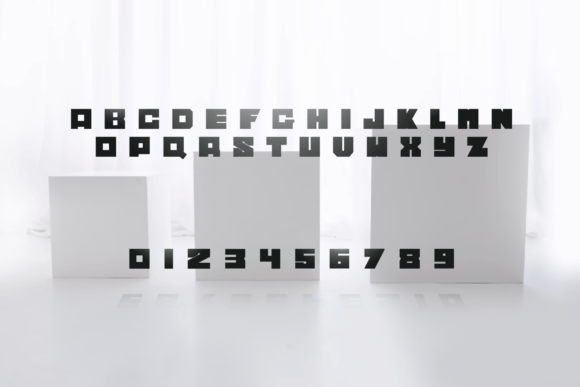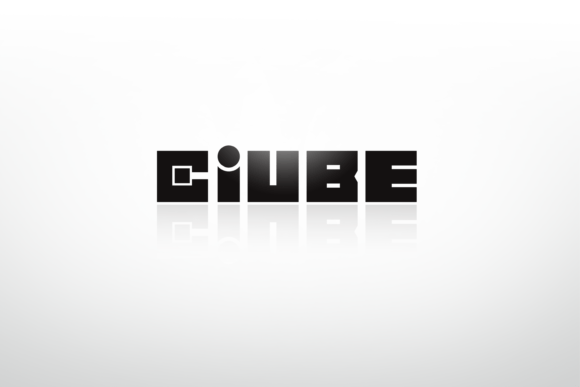
Introduction to Ciube Font
Have you ever found yourself staring at a blank canvas, eager to bring your creative vision to life, but struggling to find the perfect font to set the tone? That’s where the Ciube Font comes in – a stunning display font that’s sure to elevate your creative project to new heights.
With its unique blend of modern and vintage flair, the Ciube Font is a design resource like no other. Whether you’re working on a free download project or a high-quality commercial design, this font is sure to make a statement. Its transparent background and intricate details make it the perfect addition to any design library.
As a valuable asset for designers, the Ciube Font offers endless possibilities for creative expression. From logos and branding to editorial and advertising designs, this font is sure to be a game-changer. So why settle for ordinary when you can have extraordinary? Dive into the world of the Ciube Font and discover a whole new level of design potential.
Key Features of Ciube Font
- Unique characteristics, such as its modern and elegant style, make it an excellent choice for a wide range of creative projects
Honest Review: Ciube Font
As a designer, I’m always on the lookout for high-quality design resources to elevate my creative projects. The Ciube Font caught my attention, and I decided to give it a try.
- What works well:
- ✨ Beautiful, modern design that’s perfect for a variety of creative projects
- ✨ Clean and clear typography that’s easy to read
One thing I appreciate about Ciube Font is its versatility. The font is available for both personal and commercial use, making it a great resource for designers of all levels. The transparent background option is also a nice touch, allowing for seamless integration into any design project.
- Limitations:
- ⚠️ Limited font sizes and styles, which may limit its use in more complex designs
- ⚠️ May not be suitable for use in very small text sizes or with very bold text
Overall, I’m impressed with the Ciube Font. It’s a great addition to any design resource library, and its high quality and versatility make it a solid choice for designers working on creative projects.
Tips for Getting the Most Out of Ciube Font
Use the Ciube Font in conjunction with a transparent background to create a sleek and modern design. Experiment with different font sizes and styles to add visual interest to your design. Consider using the Ciube Font in combination with other high-quality design resources to create a unique and creative project.
The Ciube Font is ideal for use in a wide range of creative projects, including business cards, brochures, and social media graphics. It is also a great choice for use in presentations, such as PowerPoint or Google Slides. With its clean and modern design, the Ciube Font is sure to make a great impression on your audience.